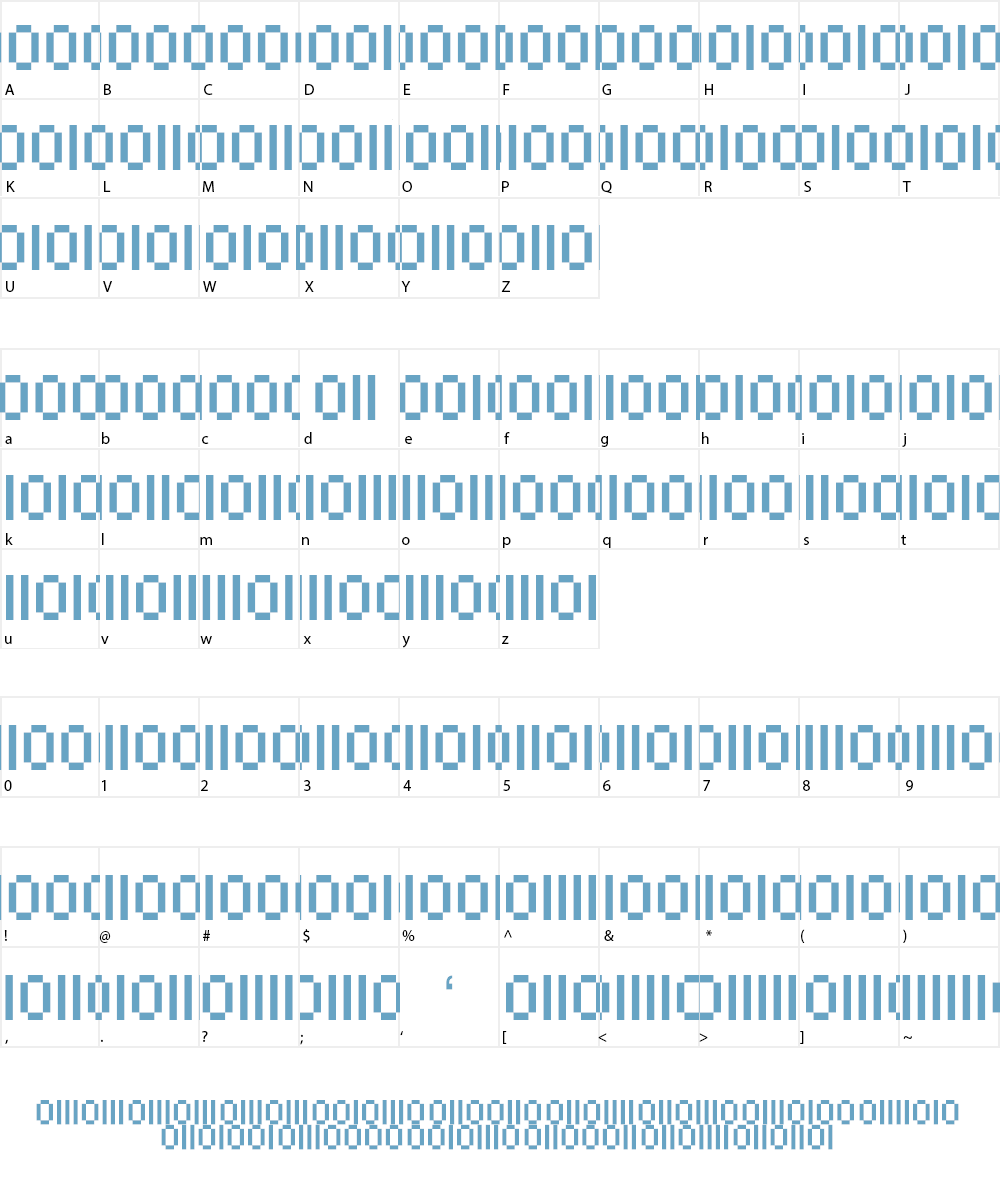
This is a 100% accurate Binary font, all characters on a standard U.S keyboard are represented including "space". Have a paper due for school? write it in binary and print it out, im sure your teacher will appreciate the 70 pages of 1's and 0's.